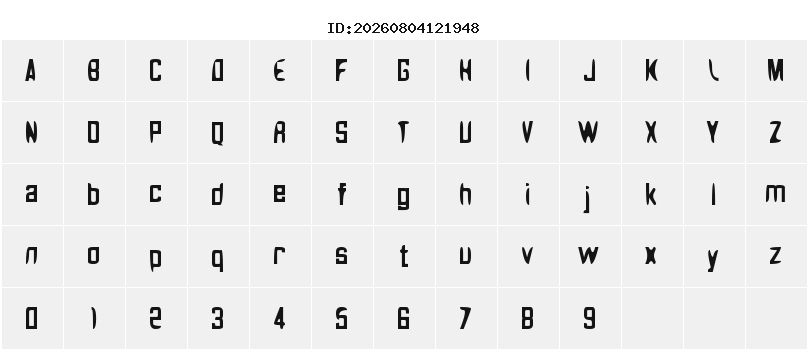
Noasarck Quattro Preview
• Font Name: Noasarck Quattro
• Full Font Name: Noasarck Quattro
• Version: Version 1.00 September 3, 2013, initial release
About Noasarck Quattro.otf
Noasarck Quattro.otf is a modern, elegant sans-serif font designed for ultimate readability and visual harmony. Perfect for branding, headlines, web design, and print materials.